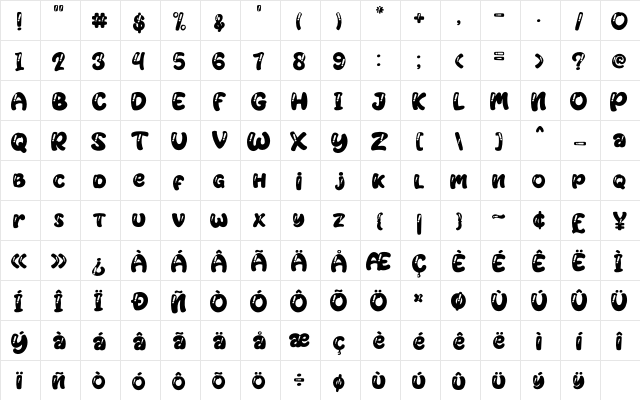
Jackdean Outline Regular
Design Context for Jackdean Outline Typeface
Jackdean Outline brings ornamental detail and strong personality to headlines and identities, where visual impact matters more than quiet functionality.
Font Pairing: Pair with a clean neutral sans-serif for body copy to let Jackdean Outline's character lead without overwhelming the composition.
Pro Tip: Treat Jackdean Outline as the centrepiece of your typographic hierarchy. One strong heading set in a decorative face can carry an entire layout.